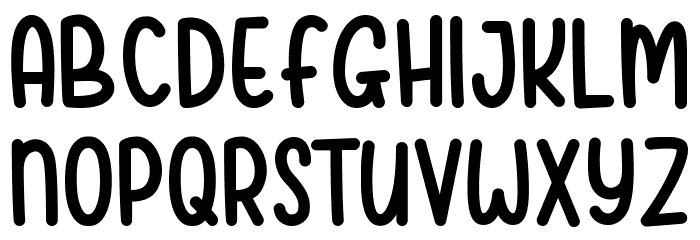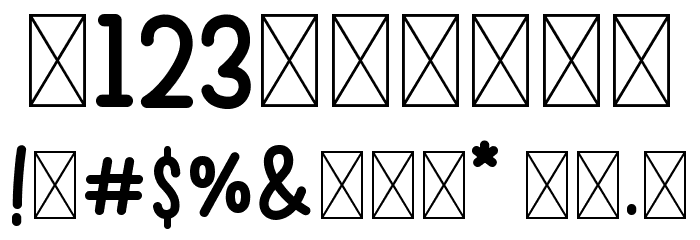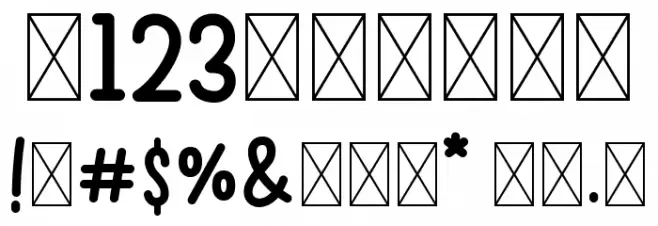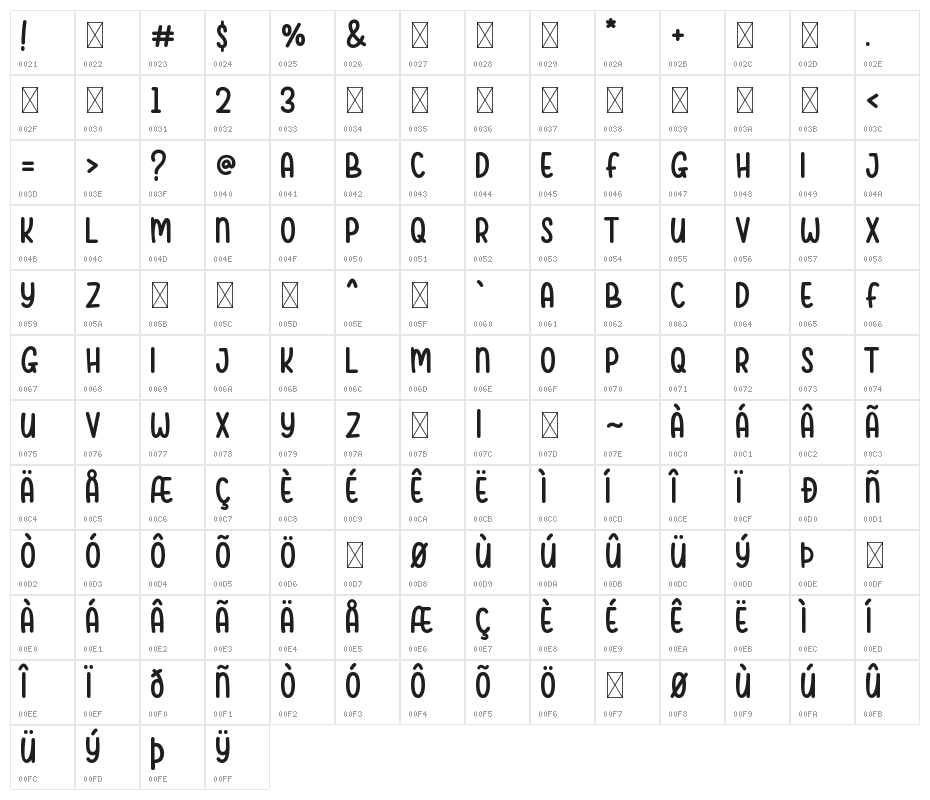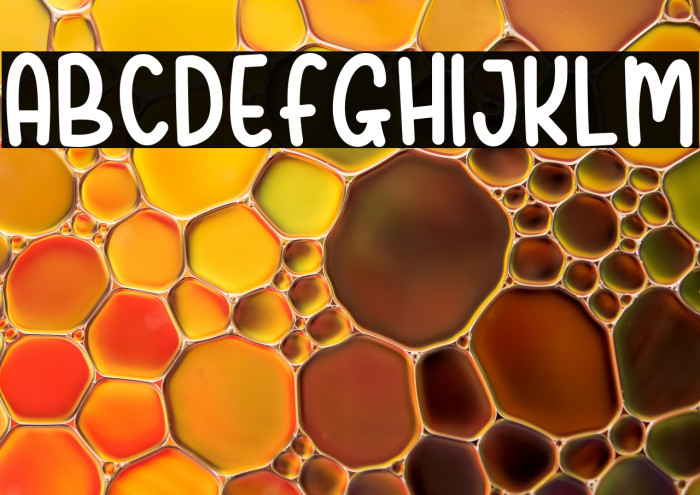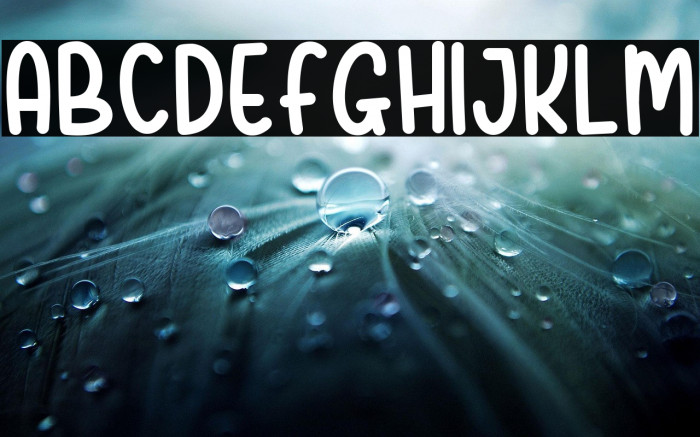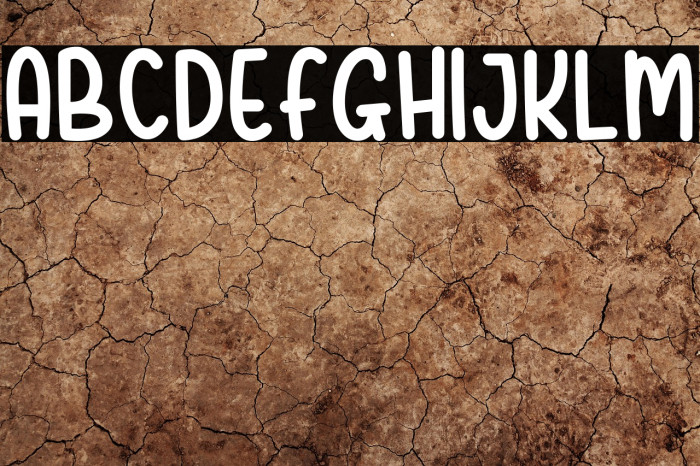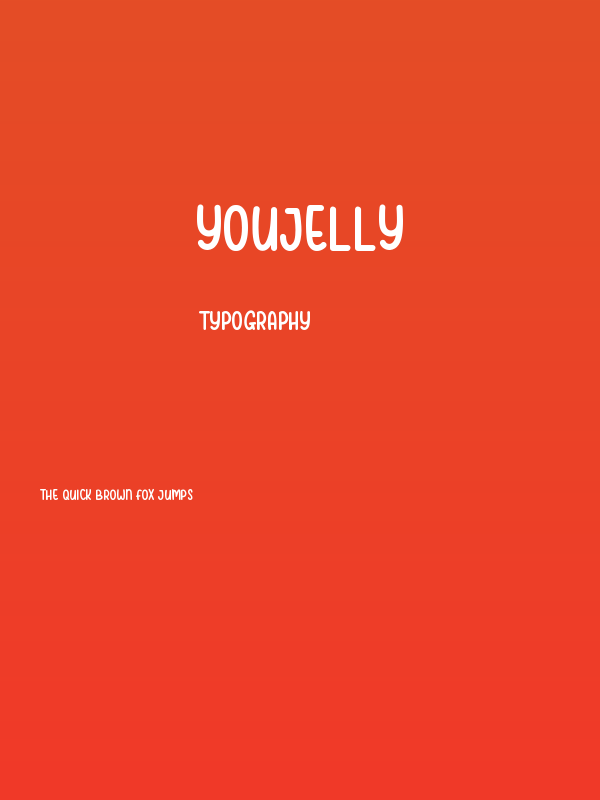
Youjelly Font
This font features a playful and rounded style, characterized by its bold and friendly appearance. The letters are uniformly thick, with smooth curves and a consistent stroke width that gives it a cohesive look. The uppercase and lowercase letters maintain a similar width, enhancing readability. The numbers are well-integrated with the overall design, and the special characters complement the font's playful nature. This font is ideal for projects that require a fun and approachable aesthetic.
A playful, rounded font with a bold and friendly appearance.
- Font: Youjelly
- Proposed Projects: Ideal for children's books, playful branding, posters, and social media graphics.
- Overall Style: Playful